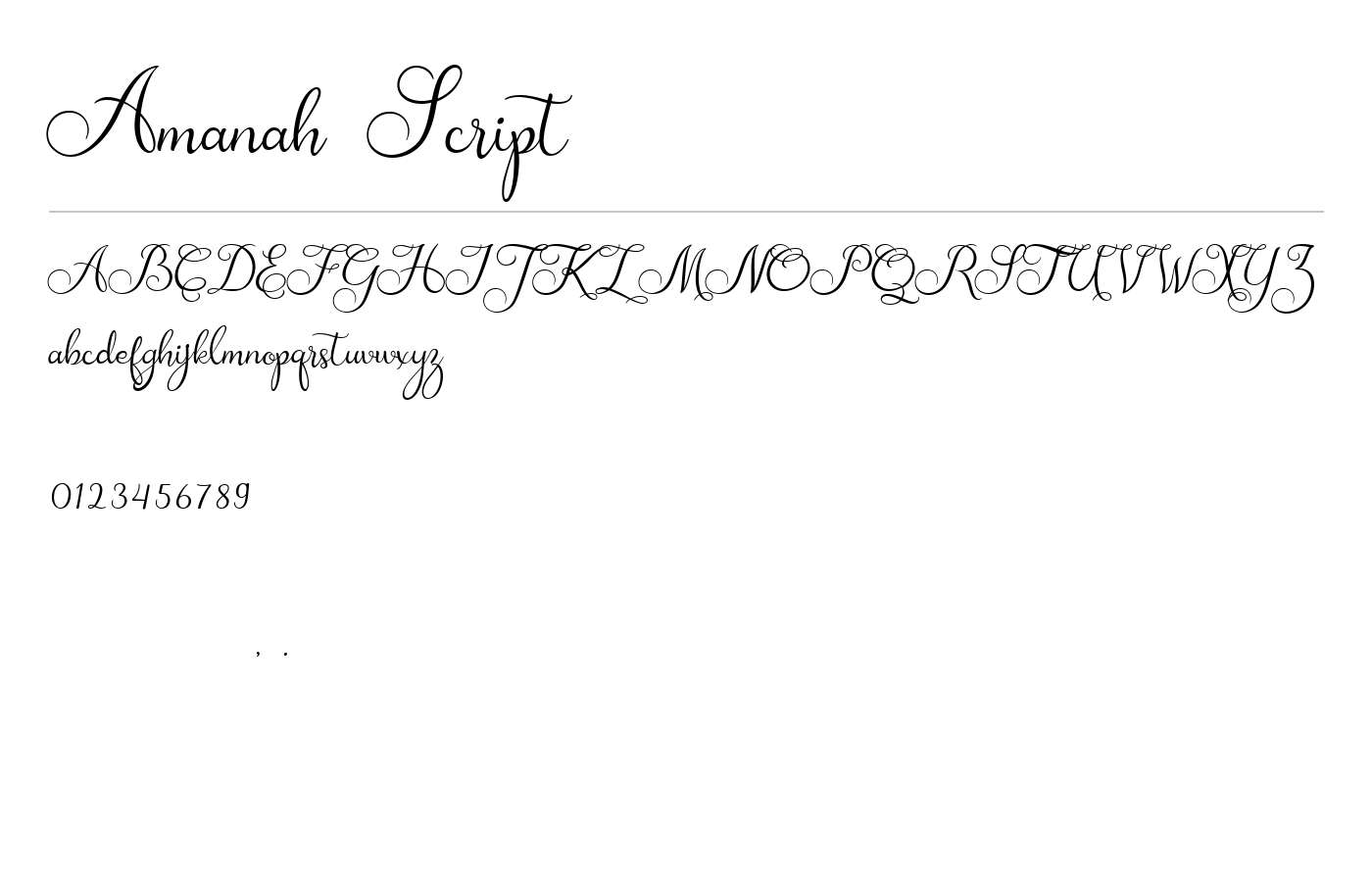
Amanah Script is an elegant, delicate script font characterized by its graceful, flowing strokes and intricate swashes, making it perfect for sophisticated and feminine designs. Its fine weight and high contrast between thin and thick lines create a refined, decorative look ideal for invitations, luxury branding, and stylish headlines. This font brings a sense of classic beauty and charm, enhancing projects that require a personal, artistic touch.
Amanah Script Font
About Amanah Script Font
| Font family | Amanah Script Font |
| Release date | 2020-03-12 |
| Designer | Alifinart Studio |